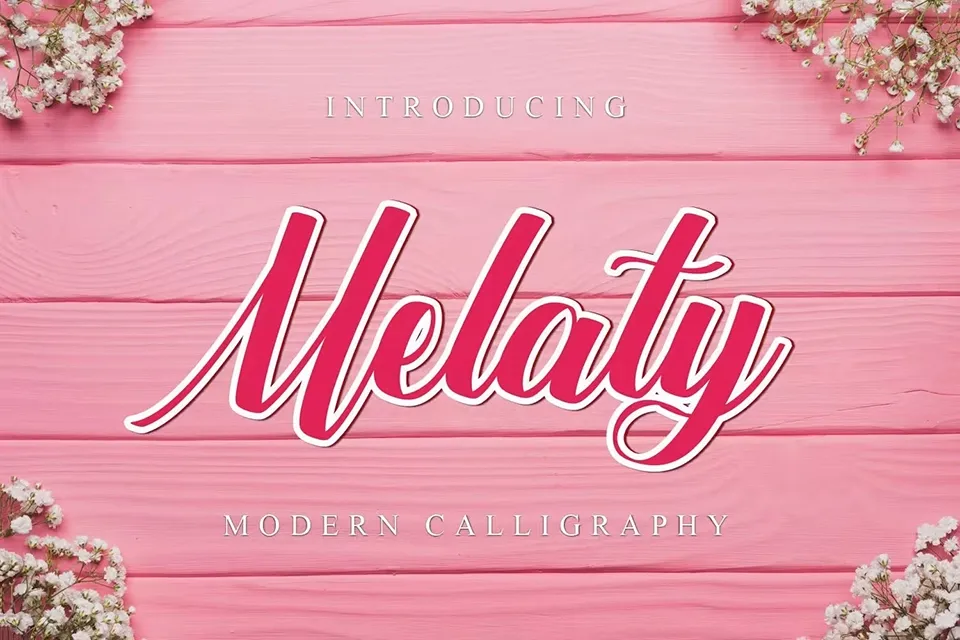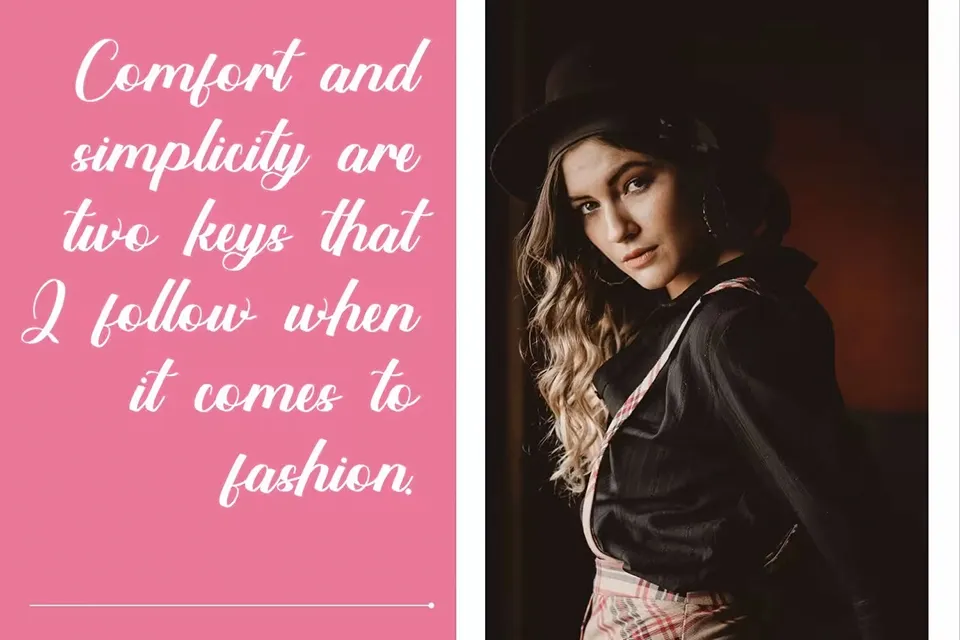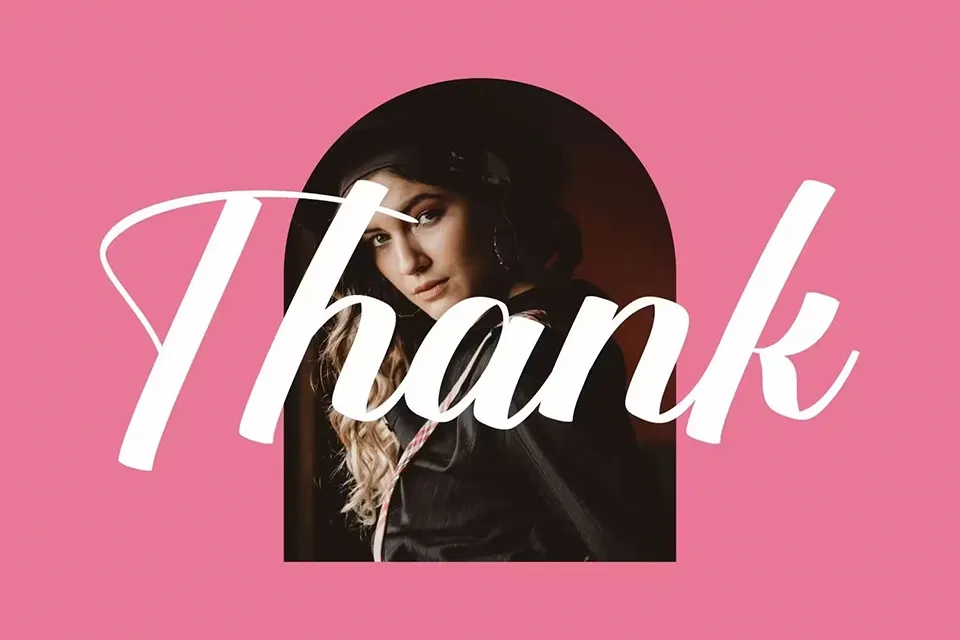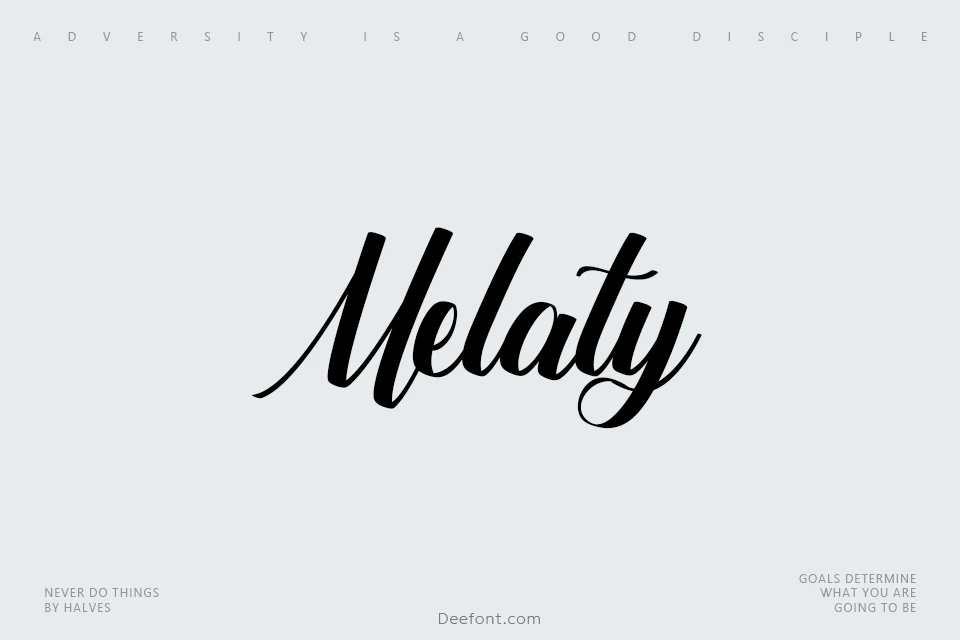
Melaty Font
Melaty Font is a modern calligraphy script with elegant, flowing curves and a personalized, handwritten feel. Its stylish and cursive letterforms make it perfect for wedding invitations, greeting cards, branding, and any project that requires a touch of sophistication and charm. Melaty Font brings a romantic and graceful look to your creative work, ensuring your designs stand out with beauty and warmth.